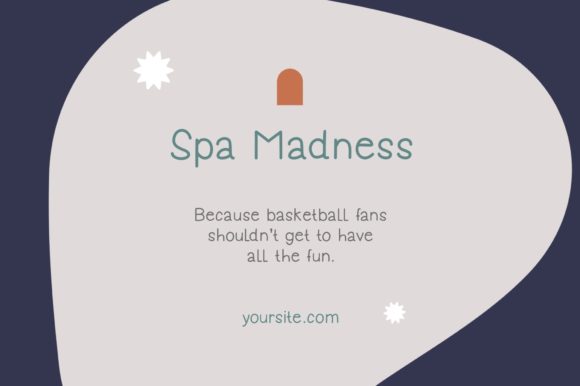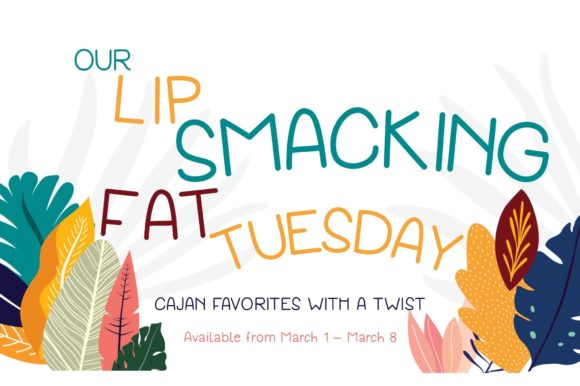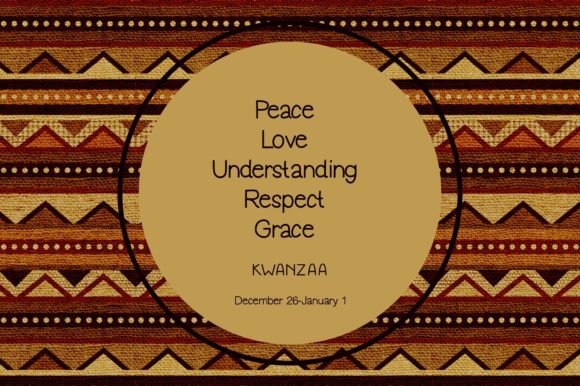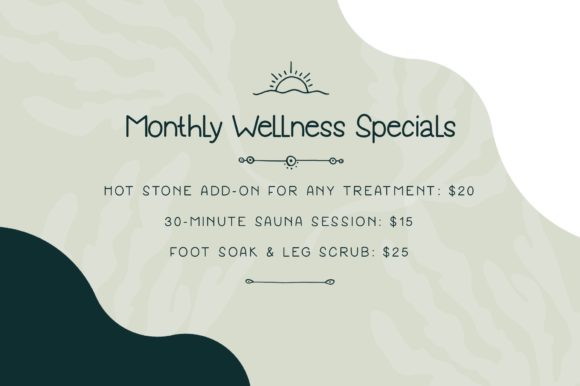
Introduction to Juliana Font
Have you ever been working on a creative project, pouring your heart and soul into it, and then you stumble upon the perfect font to bring it all together? For designers, finding that elusive font can be a game-changer. And that’s exactly what the Juliana Font does – it adds a touch of elegance and whimsy to any project, making it truly special.
As a design resource, the Juliana Font is a treasure trove of possibilities. Its dainty handwritten style and sweet swashes make it perfect for letterheads, titles, and stationery. And with its PUA encoding, you can access all of the amazing glyphs and ligatures with ease, ensuring that your designs are of the highest quality.
Key Features of Juliana Font
- High-quality design resource with a unique, elegant style perfect for creative projects.
- Supports multiple languages, making it a versatile design resource for global projects.
- Designed with precision and attention to detail, ensuring a professional look in any application.
Honest Review: Juliana Font
I recently came across the Juliana Font and was excited to try it out for my next creative project. As a designer, I’m always on the lookout for high-quality design resources that can elevate my work.
What works well: ✨ The Juliana Font has a beautiful, elegant design that’s perfect for any project that requires a touch of sophistication. The font is highly customizable, with a range of styles and weights to choose from. Additionally, the transparent background makes it easy to layer and combine with other design elements.
Overall, I’d give the Juliana Font 4 out of 5 stars. While it’s a great resource for designers, the limitations I encountered were a bit of a setback. However, I still think it’s worth checking out, especially if you’re looking for a high-quality font for your next creative project.
- High-quality design with elegant typography
- Customizable with a range of styles and weights
Common Use Cases for Juliana Font
The Juliana Font is suitable for a variety of design projects, including social media graphics, flyers, presentations, and documents. Its high-quality design makes it an excellent resource for designers and non-designers alike.